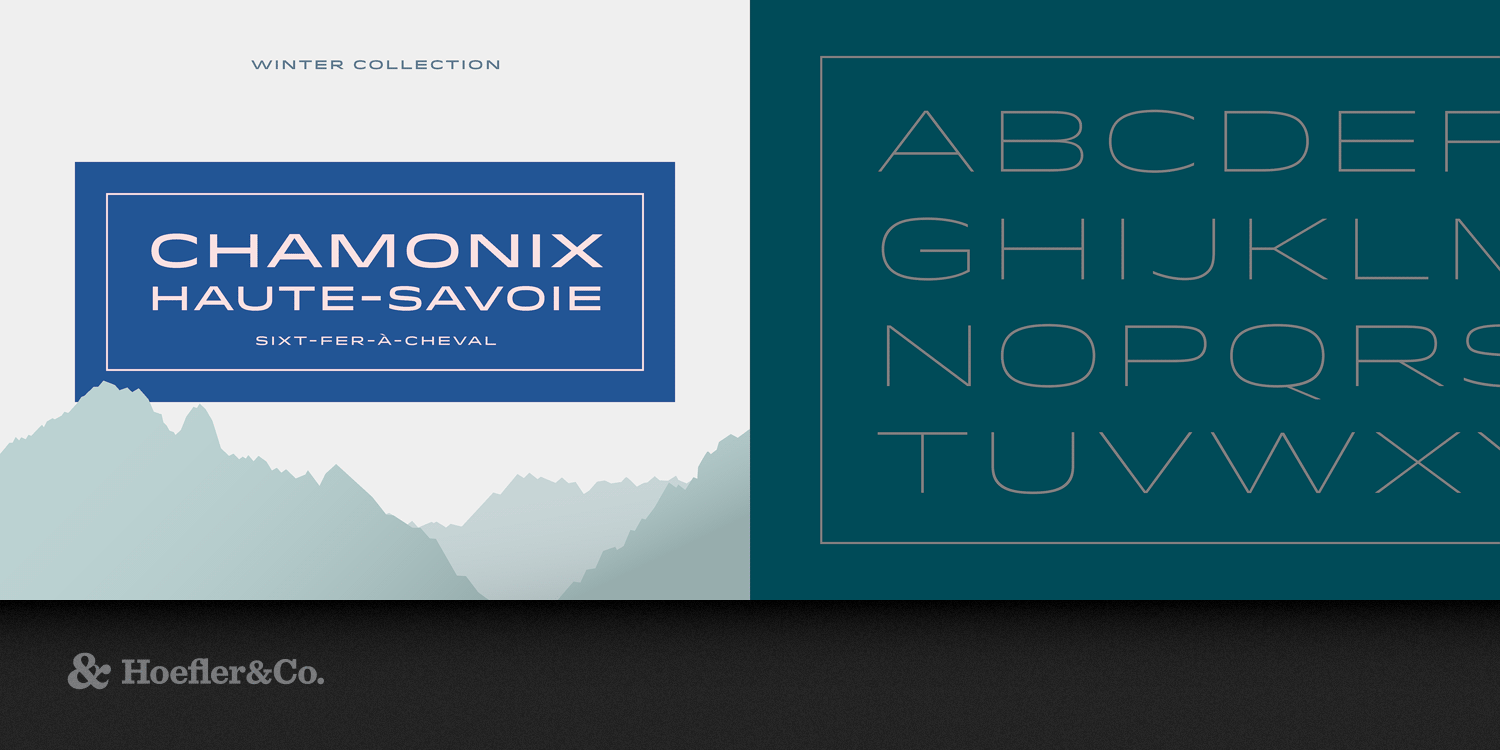
With its clean lines and vintage flair, Idlewild Font brings a sense of sophistication and timeless style to your designs. It's ideal for projects that need to convey elegance, such as event invitations, wedding designs, retro branding, and editorial work.
Idlewild Font Free Download supports multilingual characters, making it suitable for global projects. Its legible design ensures readability while maintaining its vintage charm, making it perfect for both print and digital applications.